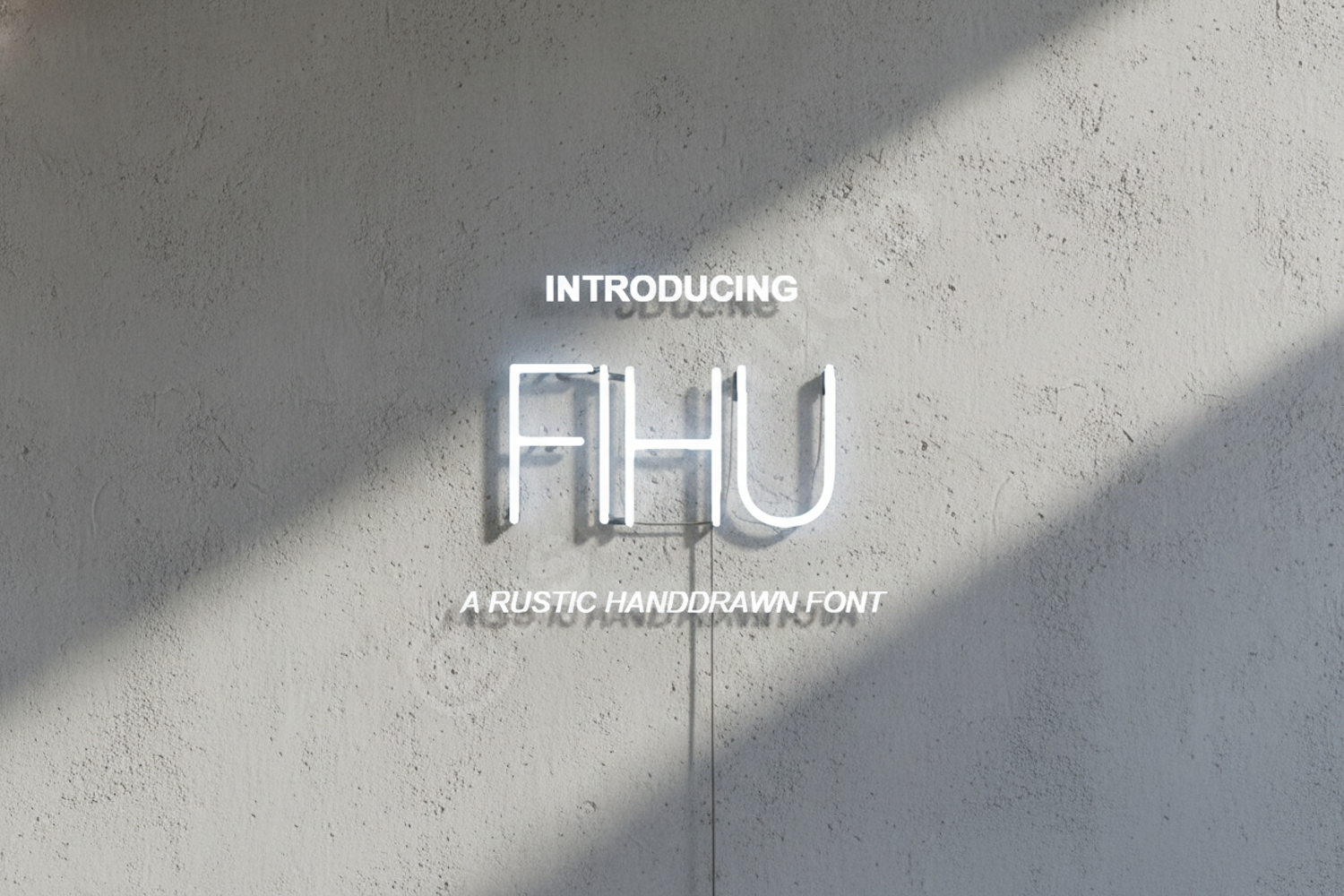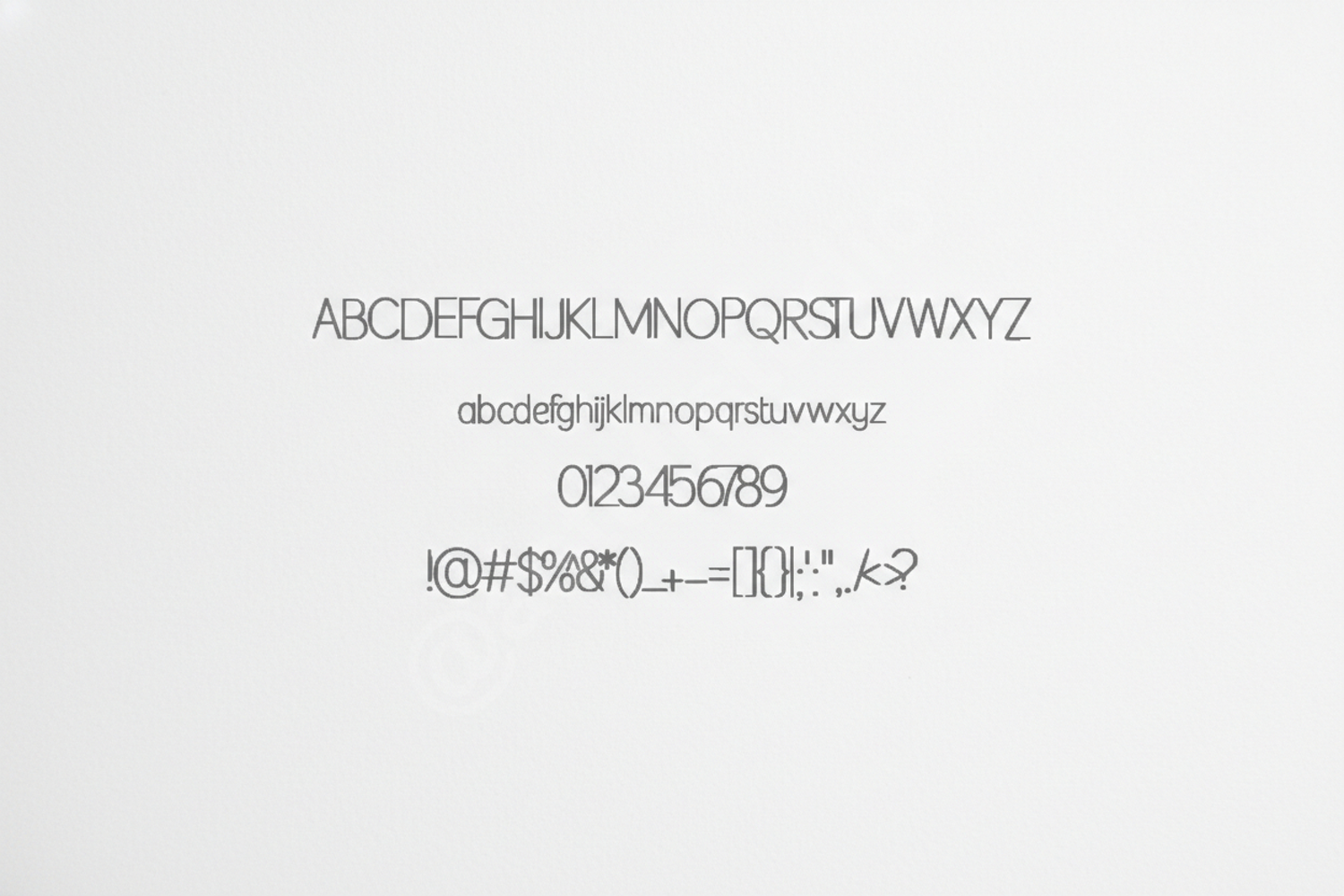
Fihu | Modern Minimalist Sans Serif Typeface
Fihu
Fihu is a premium sans-serif typeface that balances modern aesthetics with timeless geometric precision. Designed for creators who demand clarity and sophistication, Fihu offers a clean look that works seamlessly across both digital and print mediums. Whether you are building a high-end brand or designing a sleek user interface, this font provides the versatility needed to make your project stand out with professional elegance.
- Full Character Set including Uppercase and Lowercase
- Numbers and Comprehensive Punctuation